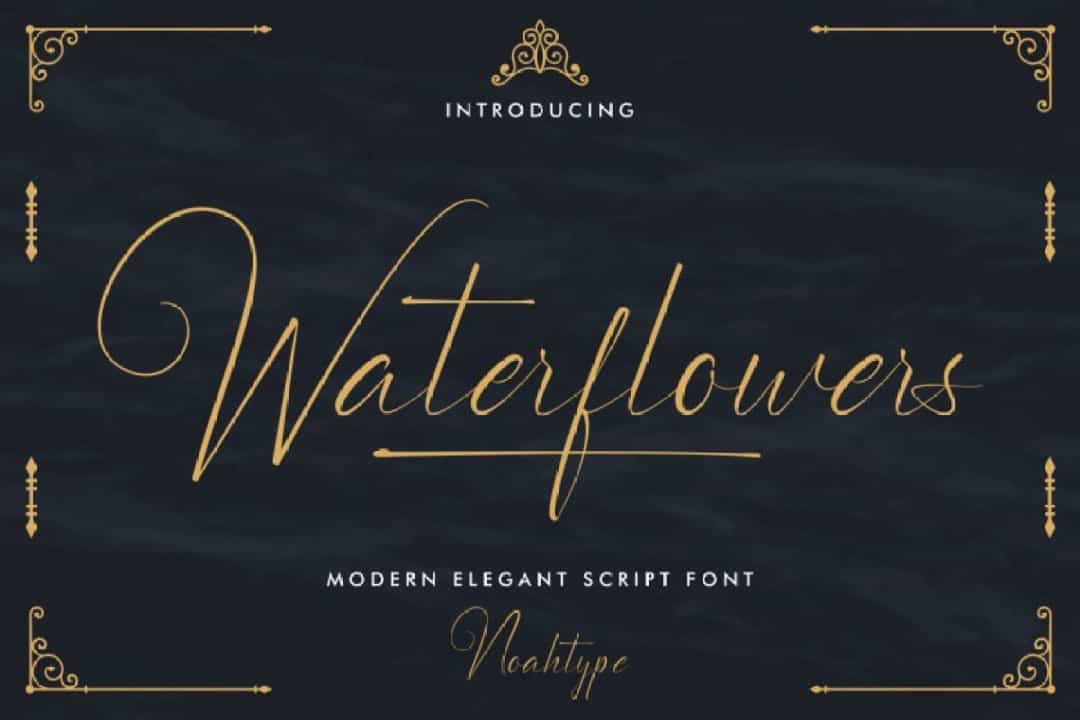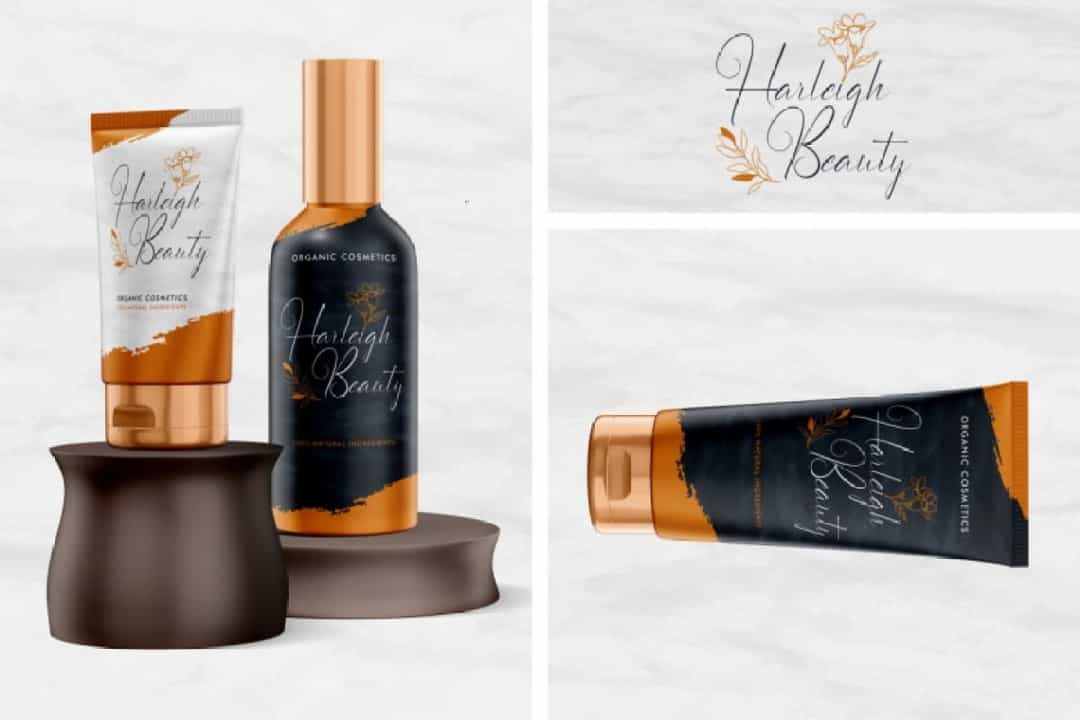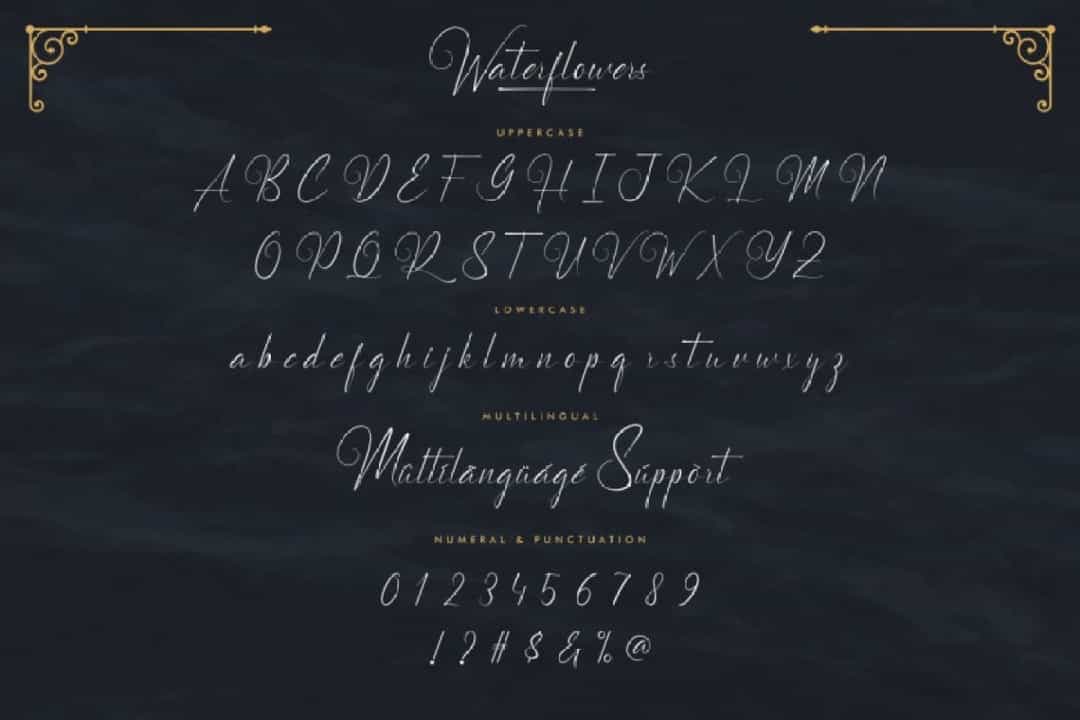
Waterflowers Calligraphy Type features sophisticated characters, fashionable swashes and beautiful alternative fonts that create the look of handwriting as naturally as possible. Ideal for invitations that require calligraphy. Also great to highlight high-end brands or songs titles! Specifically crafted to give it this distinctive look of handwriting!